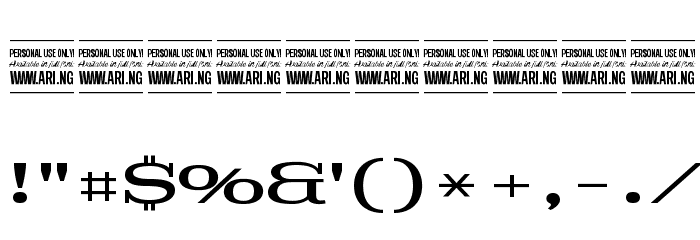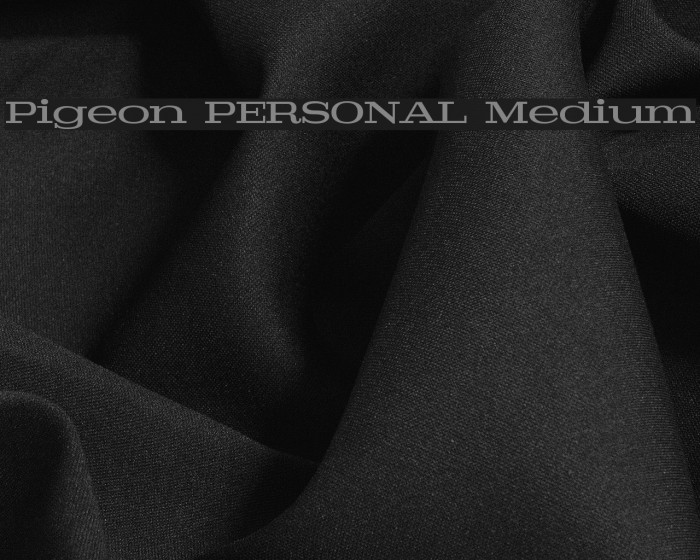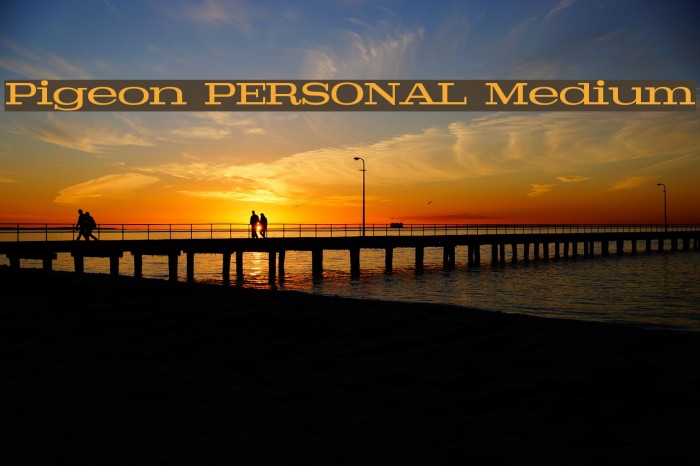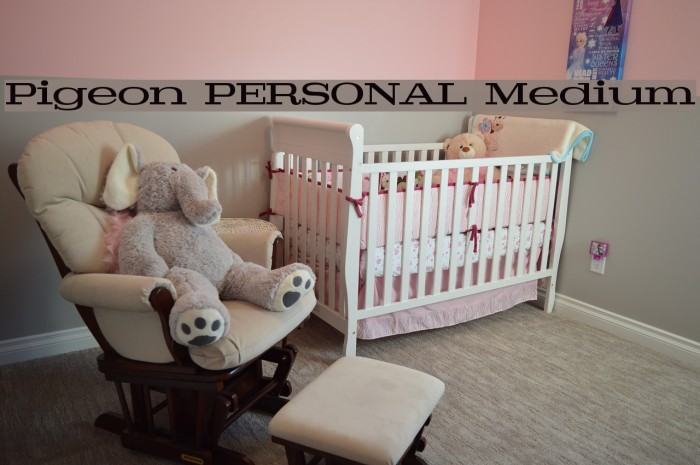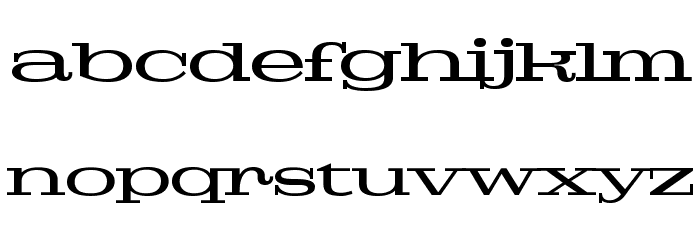
Pigeon PERSONAL Medium Font
Pigeon PERSONAL Medium Description
This font features a distinctive blend of modern and classic elements, characterized by its bold and structured letterforms. The uppercase letters exhibit a strong presence with their wide, angular serifs and consistent stroke widths, giving them a commanding appearance. The lowercase letters maintain a similar style, with a slightly more rounded approach, adding a touch of elegance. The numerals are clear and legible, matching the overall boldness of the alphabet. Special characters are well-integrated, maintaining the font's cohesive aesthetic. This font's design is both versatile and impactful, suitable for a variety of applications.
A bold, modern serif font with strong, angular serifs and consistent stroke widths from Uncategorized fonts.
- Proposed Projects: Ideal for branding, editorial design, posters, and headlines where a strong, modern serif is desired.
- Use Case: Headlines, Logos, Branding